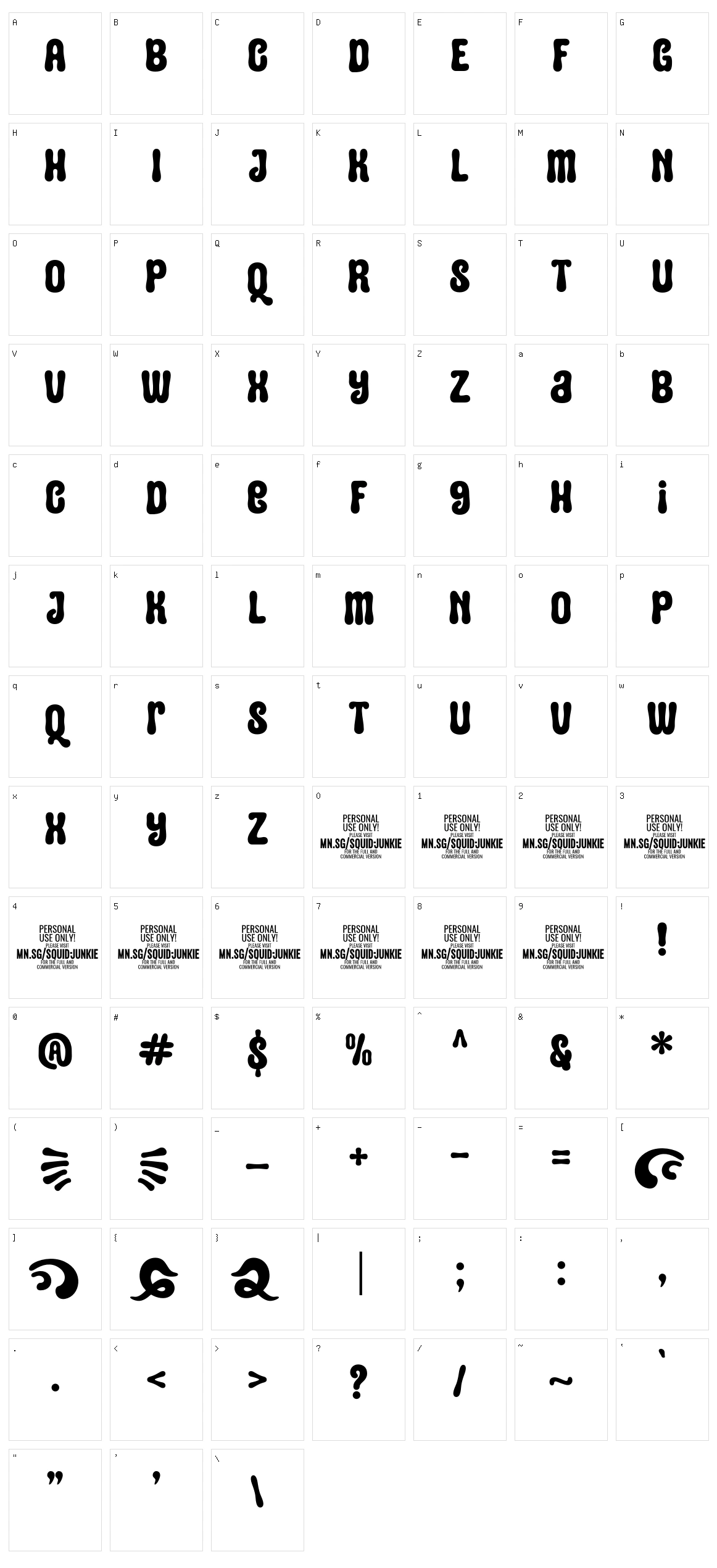
Squid Junkie is a bold and vibrant tribute to the funky, hippie-inspired designs of the past. With its playful, cartoonish aesthetic and playful use of line and color, this sans-serif font is the perfect choice for designers looking to inject a touch of retro fun and humor into their projects.
With its versatile range of styles, including regular, light, and bold weights, each with its own italic counterpart, this font is designed to meet the needs of designers of all levels.
But that's not all - Squid Junkie is also available as an outlined font, giving you even more options for making your designs stand out.
Use parenthesis symbols ( ) { } [ ] to create tentacles.
Example: [OCTUPUS]
The font is built with advanced OpenType functionality and has a guaranteed top-notch quality, containing stylistic and contextual alternates, ligatures and more features; all to give you full control and customizability.
It has extensive lingual support, covering all Latin-based languages, from Northern Europe to South Africa, from America to South-East Asia.
It contains all characters and symbols you'll ever need, including all punctuation and numbers.